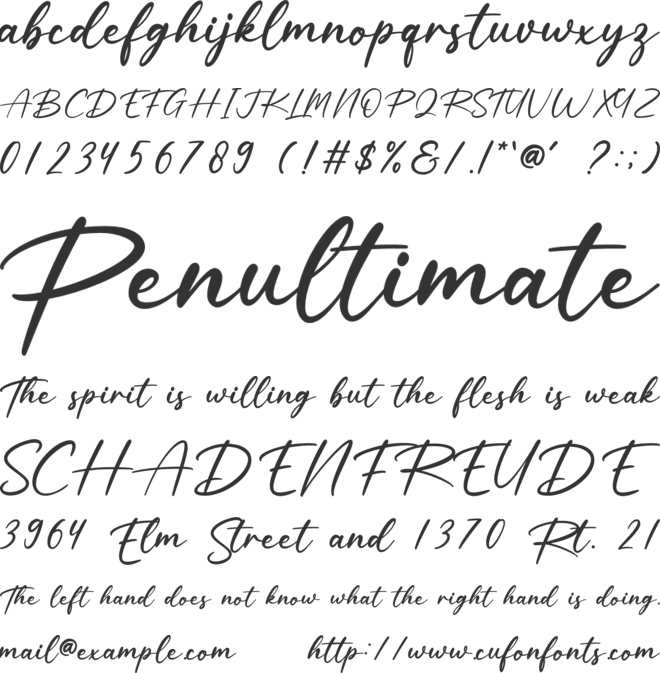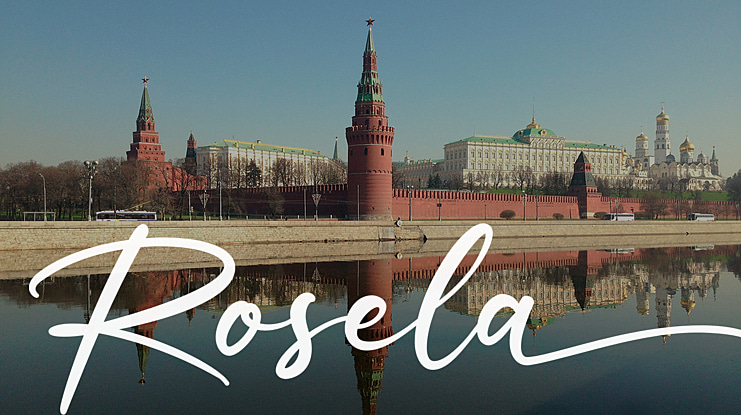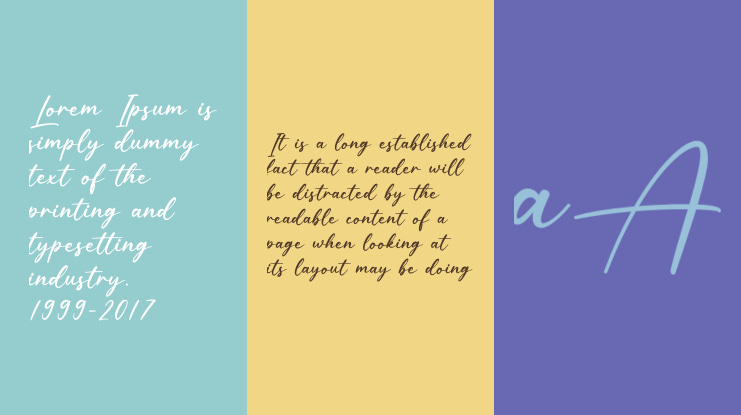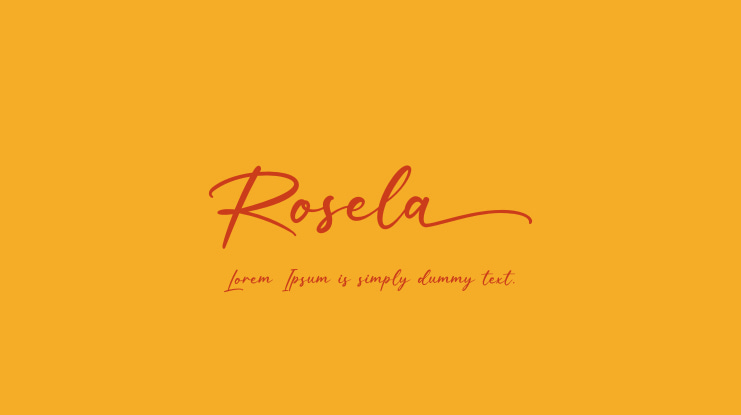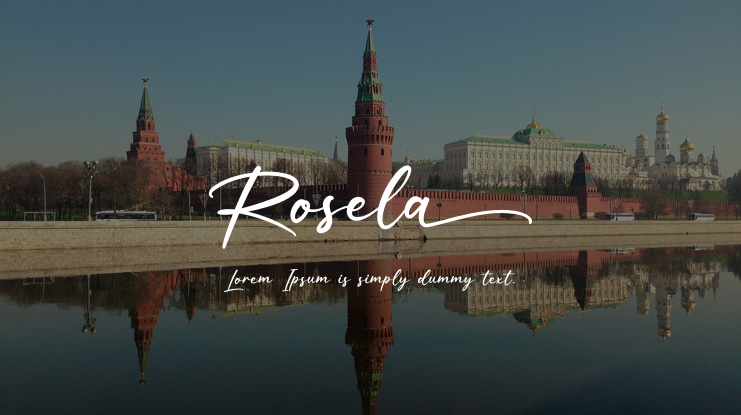
Rosela Font
Aldi Raya Pradipta
This is a beautiful handwritten typeface ideal for logos, wedding stationery, photography watermarks, modern websites, and more. It is defined by smooth curves and is perfect for fashion branding or editorial designs. Rosela is PUA encoded which means you can access all of the glyphs and swashes with ease!